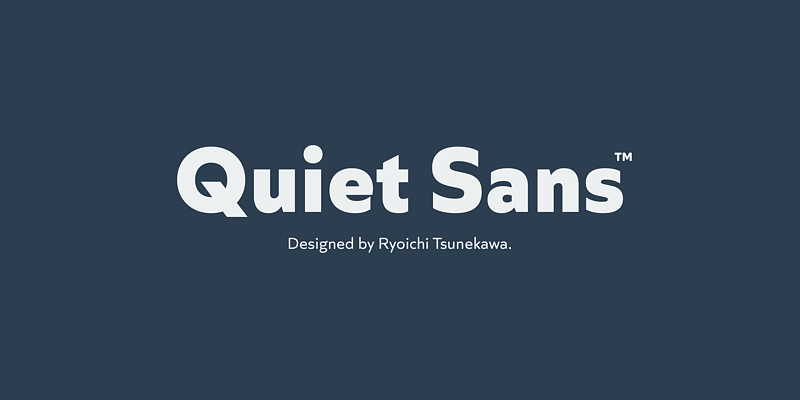
Quiet Sans specimen
Quiet Sans
Quiet Sans is a super geometric sans-serif. The basic concept of this family is not only to make crisp, sharp and strong impact but also to be legible and readable even on small size screen.